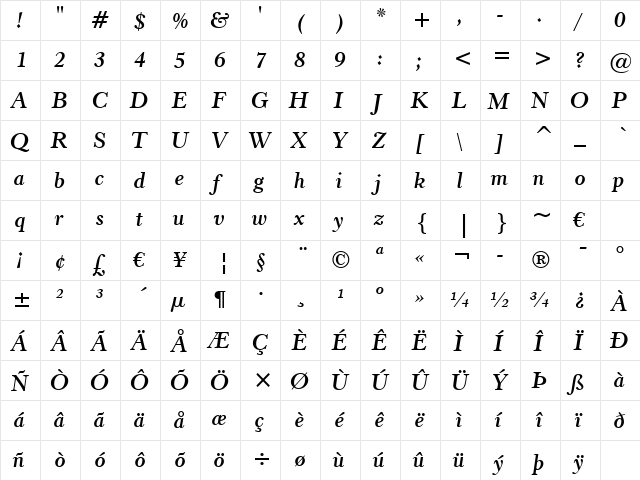
Revivl555 BT Bold Italic Font Preview
Design Context for Revivl555 BT Typeface
Revivl555 BT takes a measured approach to typography — its balanced proportions and neutral character make it a reliable workhorse for both digital and print work. Its italic angle brings a sense of urgency and motion to the letterforms. The heavy weight commands attention and anchors typographic hierarchies.
Pro Tip: Try Revivl555 BT for annotation and caption copy alongside an upright companion — the contrast in angle creates a dynamic but ordered typographic system.